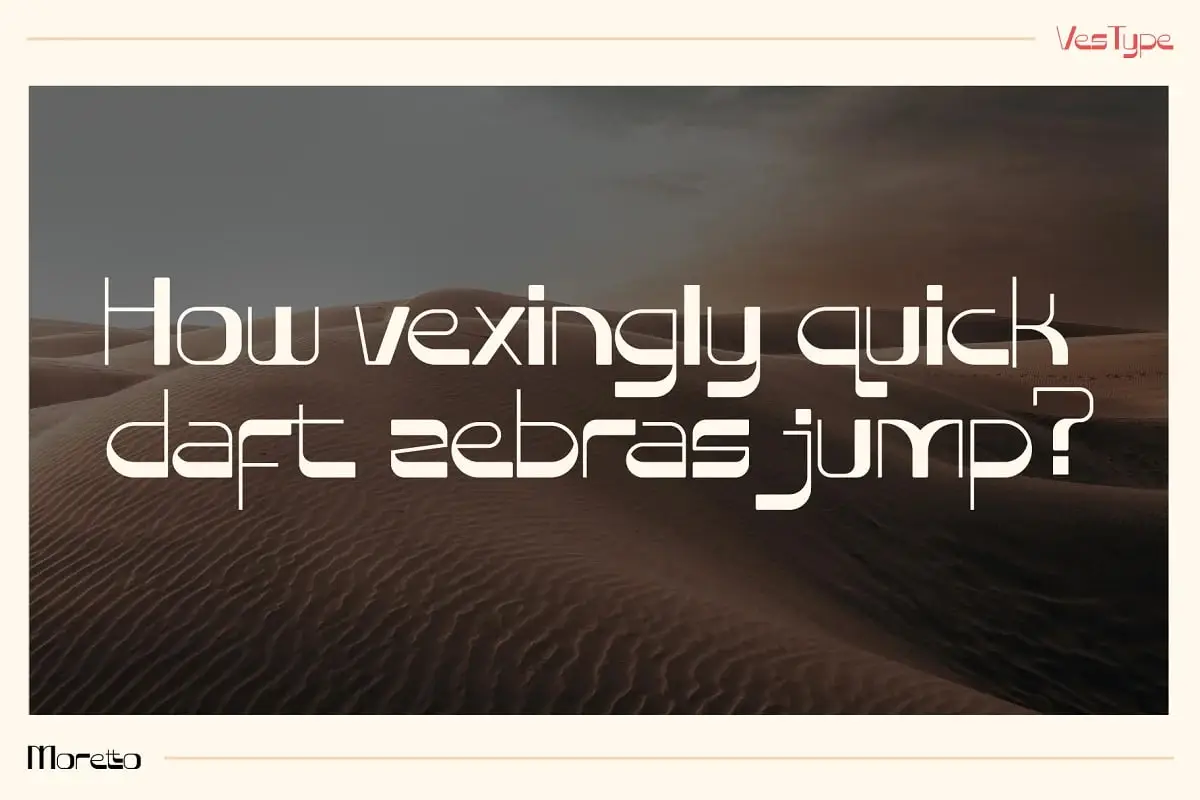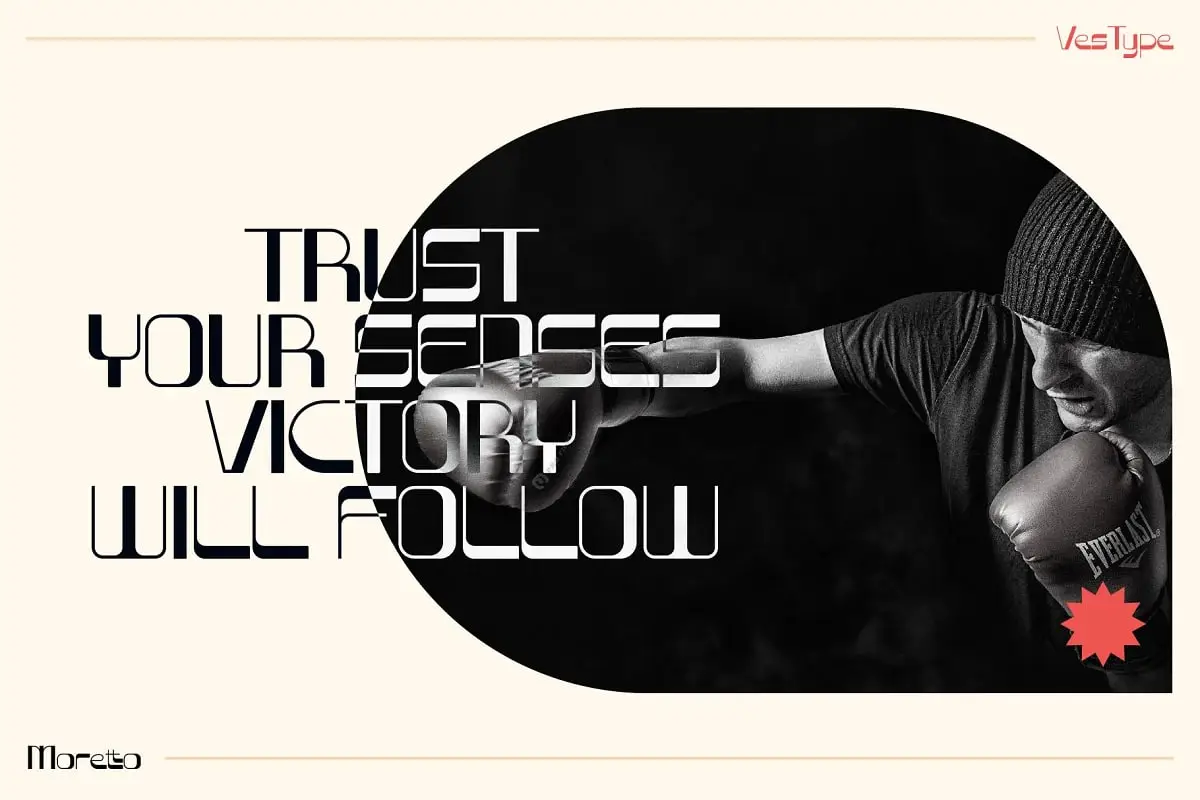
Moretto Display Font-Vestype
Introducing the Moretto Display Font from Vestype, a stunning typeface that combines elegance with modern design. This font is perfect for creating eye-catching branding, logos, and promotional materials.
• Unique display style
• Special characters and punctuation included
Utilize the Moretto Display Font for headlines, advertisements, and any design project that requires a bold statement. Its unique style makes it ideal for both web and print use.